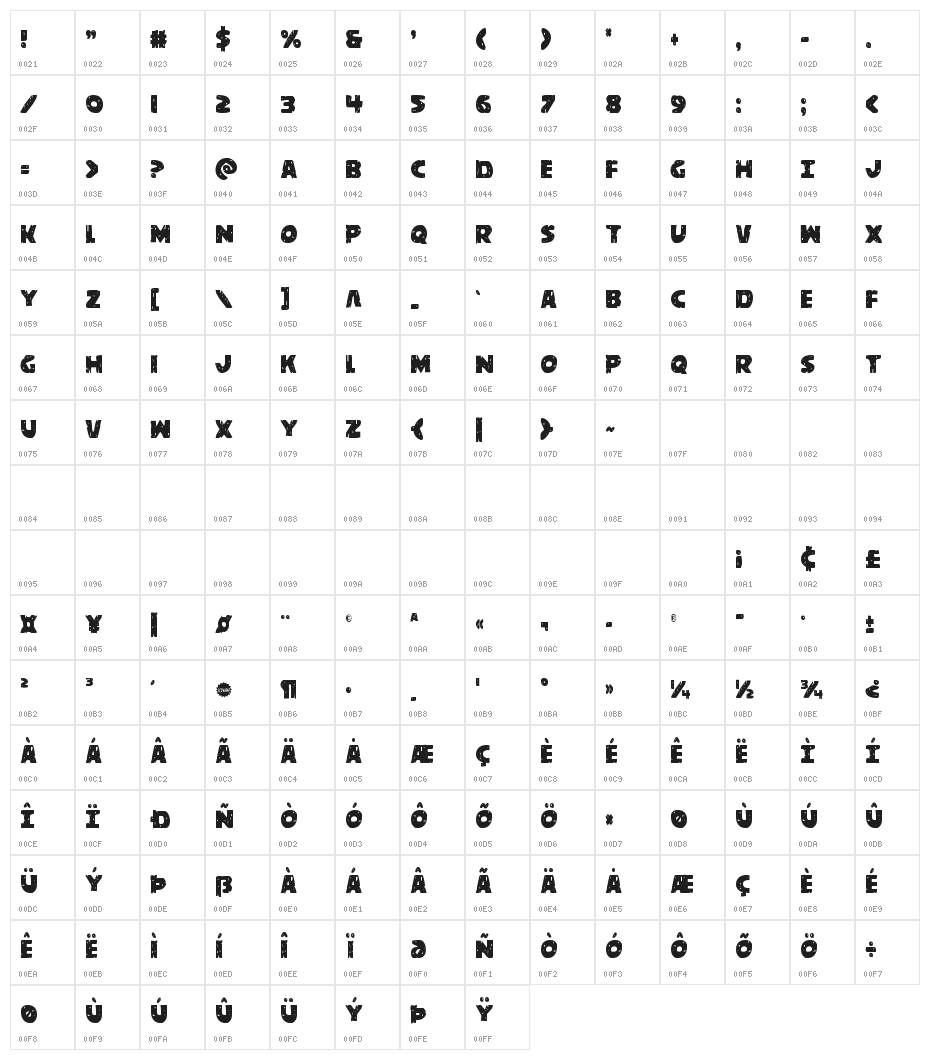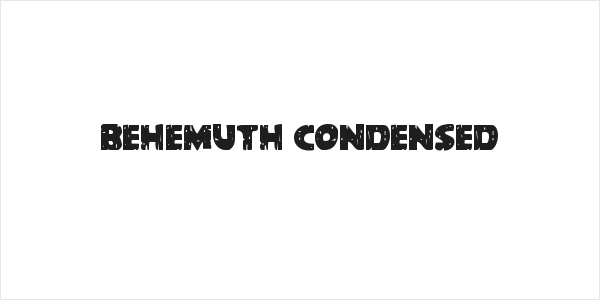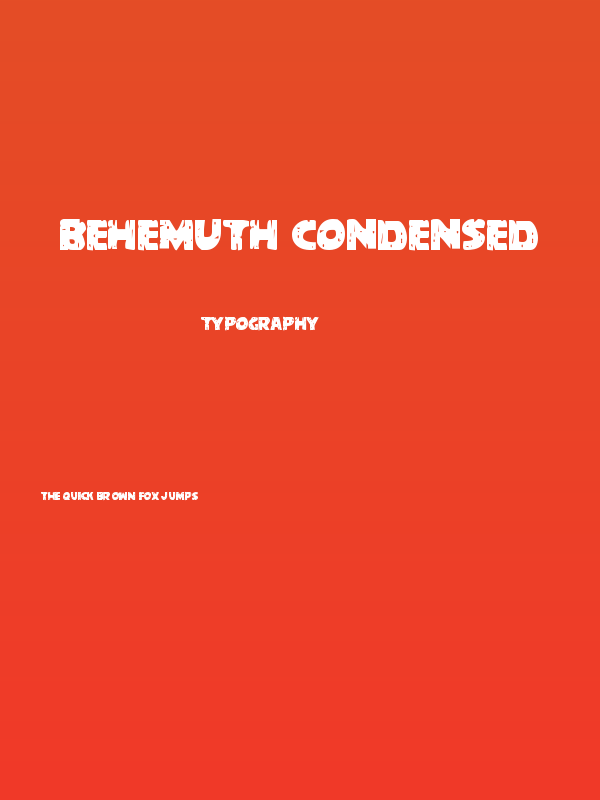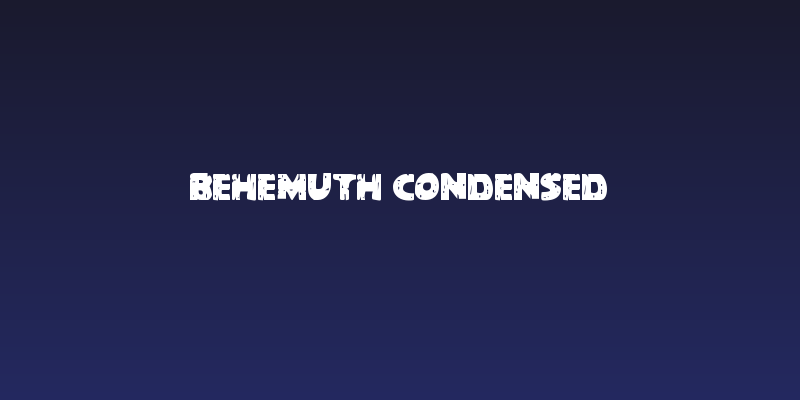
Behemuth Condensed Font
Behemuth Condensed Description
This font features a bold and condensed style with a unique, distressed texture that gives it a rugged and edgy appearance. The characters are tightly spaced, enhancing the compact look. The uppercase and lowercase letters maintain a consistent design, with thick strokes and minimal contrast. The numbers and special characters follow the same aesthetic, making the font suitable for attention-grabbing designs. Its decorative nature makes it ideal for projects that require a strong visual impact.
Proposed ProjectsIdeal for posters, album covers, video game titles, and branding that requires a bold, edgy look.